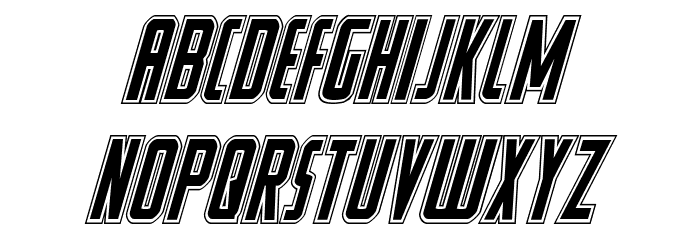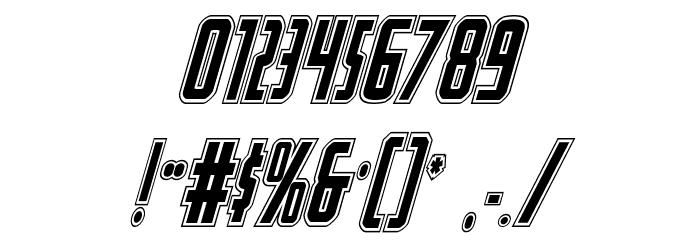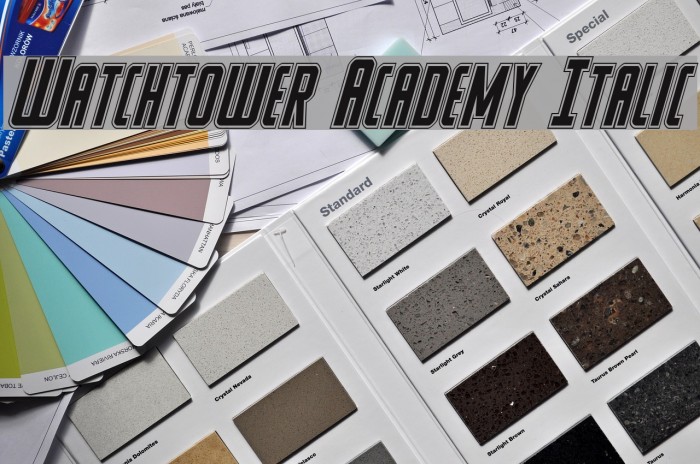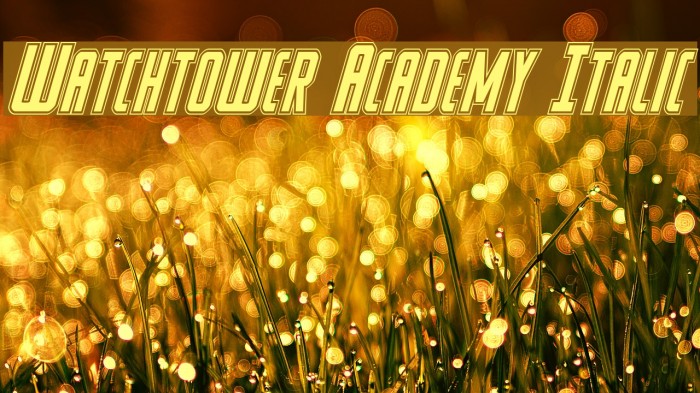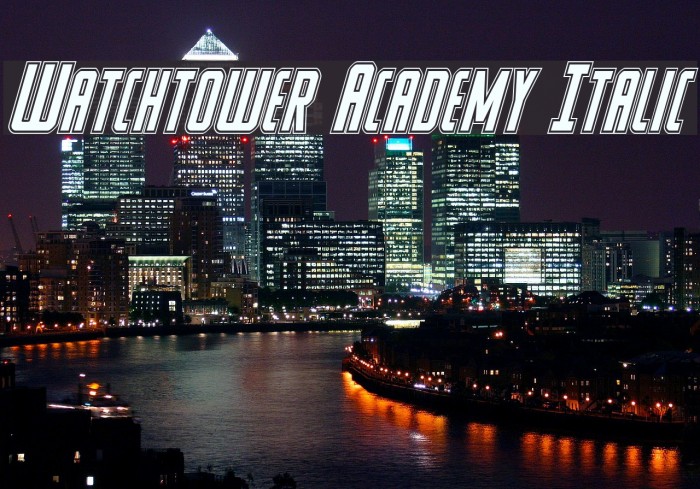
Watchtower Academy Italic Font
This font features a bold and dynamic style with a strong presence. The characters are italicized, giving them a forward-leaning appearance that suggests movement and energy. The strokes are thick and consistent, with a high contrast between the main strokes and the thin lines outlining each letter. The edges are sharp and angular, contributing to a modern and assertive look. This font is particularly suitable for attention-grabbing headlines and titles, where a sense of urgency or action is desired. The numbers and special characters maintain the same bold and italicized style, ensuring consistency across all elements.
A bold, italicized font with high contrast and sharp edges, ideal for dynamic headlines.
- Proposed Projects: Perfect for sports branding, action movie posters, dynamic event flyers, and modern advertising campaigns.
- Contrast: High